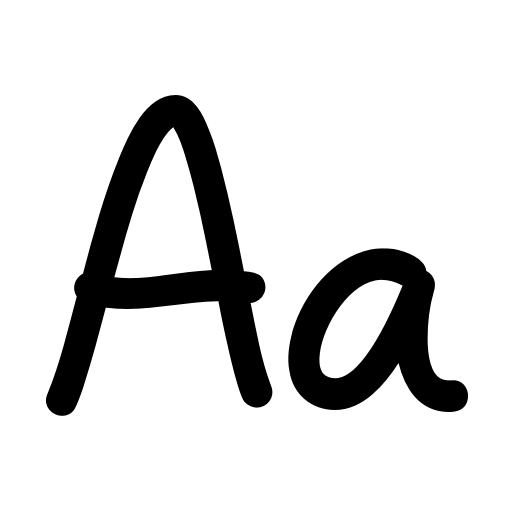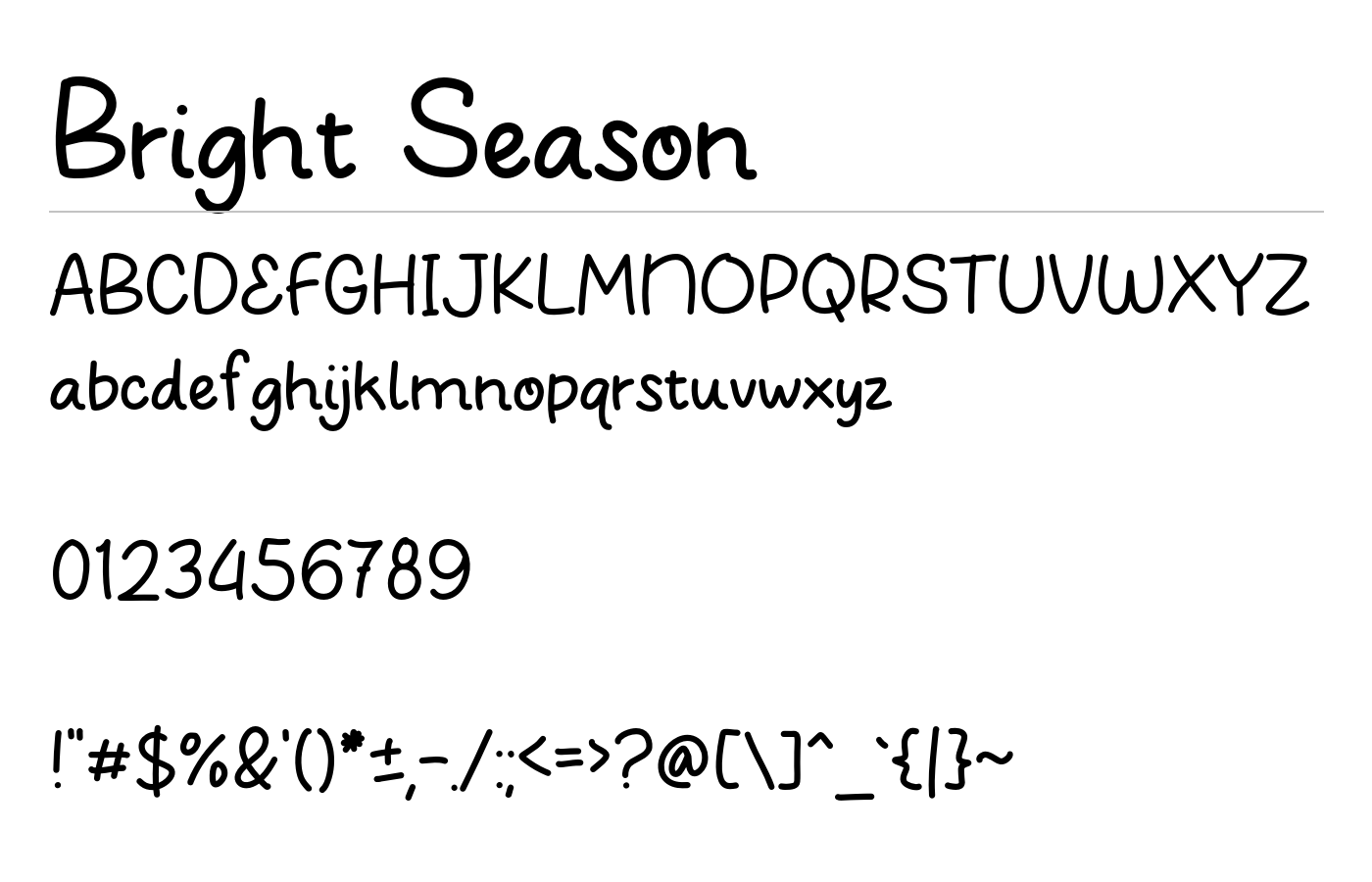
Bright Season is a playful, casual handwritten sans serif font with a light weight and clean, slightly rounded strokes that create a friendly and approachable feel. Its simple, open letterforms and moderate x-height make it highly readable, ideal for informal designs such as children's books, greeting cards, and creative branding. This font works best in contexts where a warm, personal touch is desired, adding an inviting and cheerful personality to headlines, logos, and playful editorial layouts.
Bright Season Font
About Bright Season Font